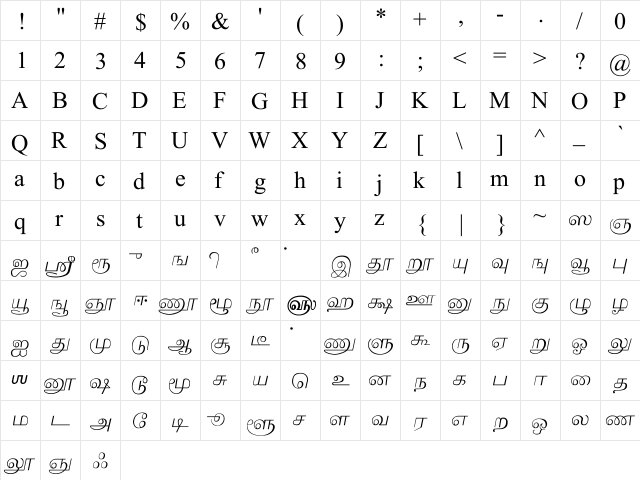
IndoWeb-Tamil-Valluvar Regular
Design Context for IndoWeb-Tamil-Valluvar Typeface
IndoWeb-Tamil-Valluvar offers clean, dependable letterforms without strong stylistic allegiance, making it a practical choice for designers who need flexibility.